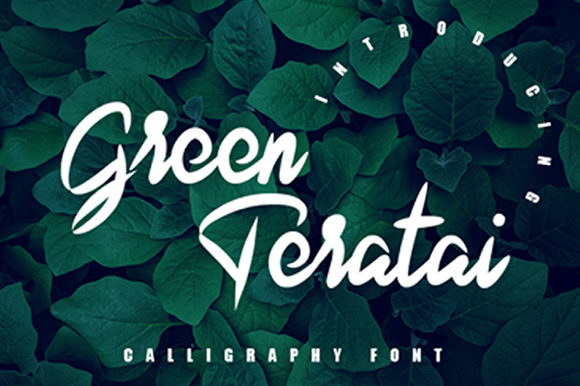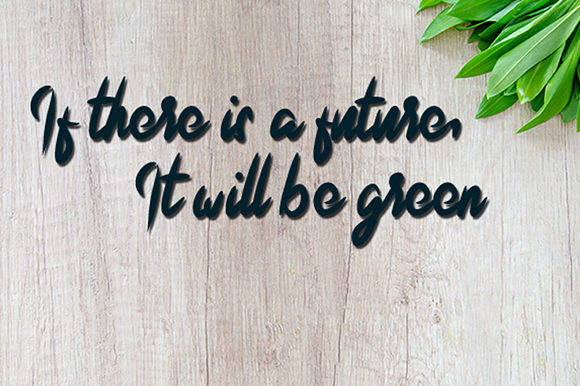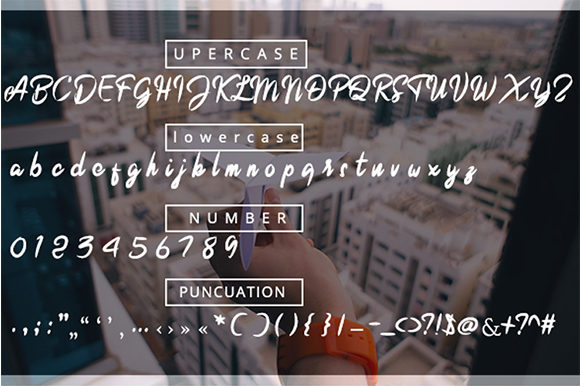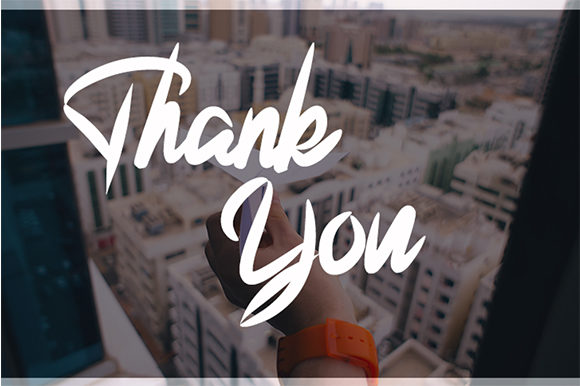
Green Teratai Font
Green Teratai is a sweet and stunning handwritten font with an incredible feel. It will turn any design project into a true standout!